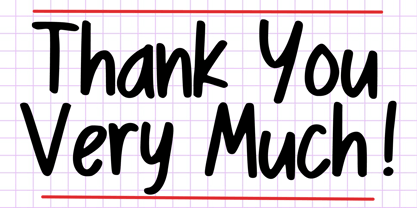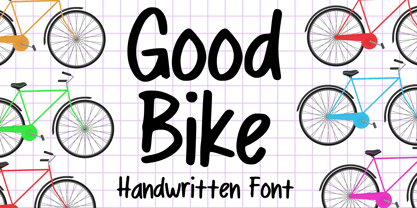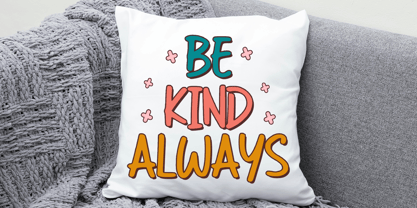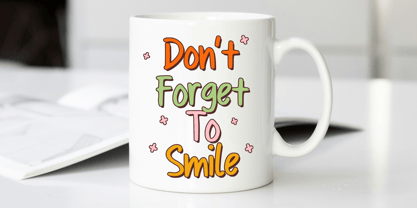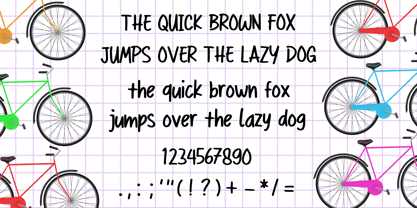
Good Bike
by Mvmet
The Good Bike Font Family was designed by Gabriel Valentinus and published by Mvmet. Good Bike contains 1 styles. More about this family
Good Bike is a versatile handwritten comic font, inspired by 90s street graffiti, comic and cartoons. You can use it for anything ranging from t-shirts and clothing, for your book designs, street art needs, greeting cards, stickers, posters, banners, or anything that needs a bold and fun touch. Try it to create fabulous designs and feel the fun and cheering vibes with it!
Designers: Gabriel Valentinus
Foundry: Mvmet